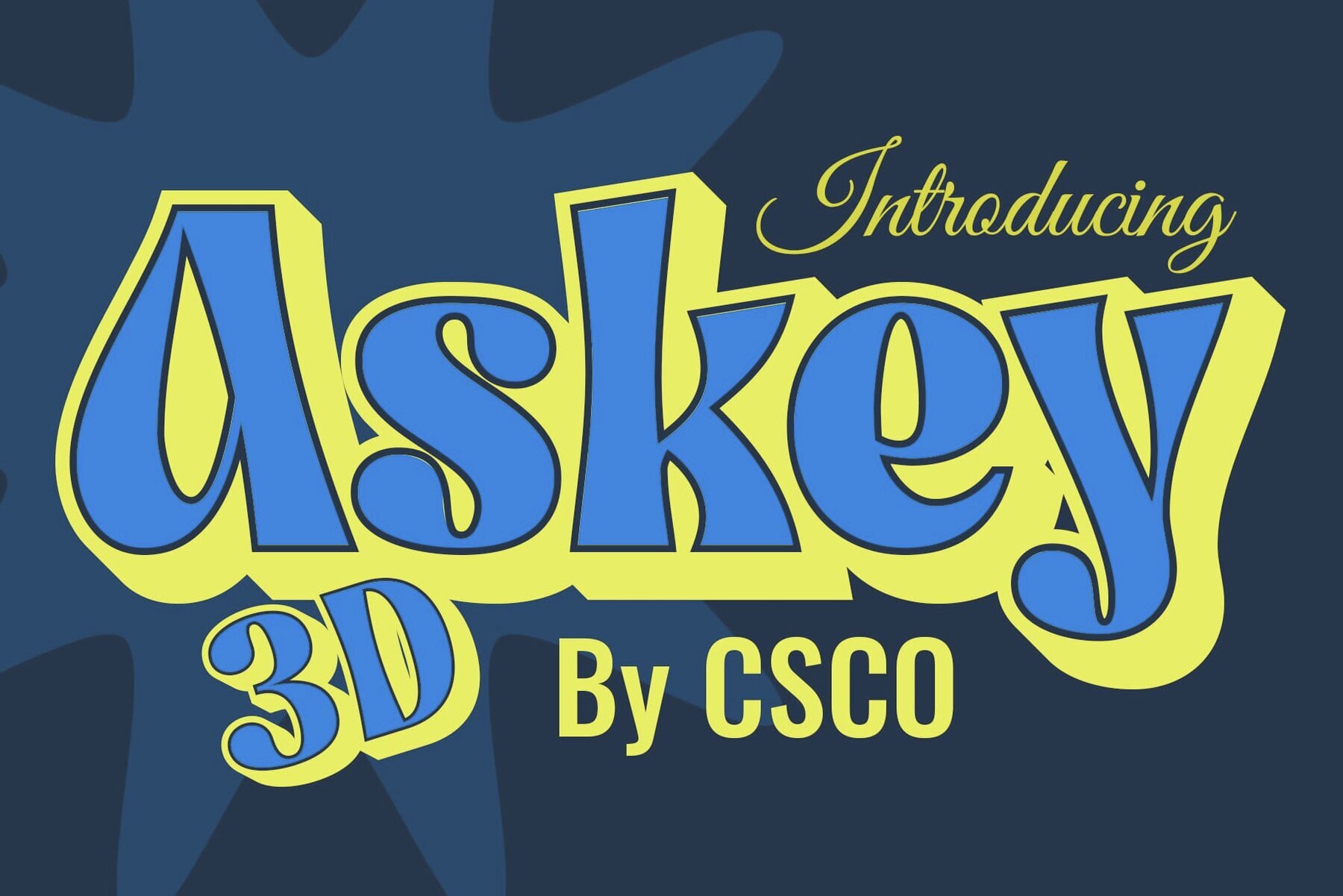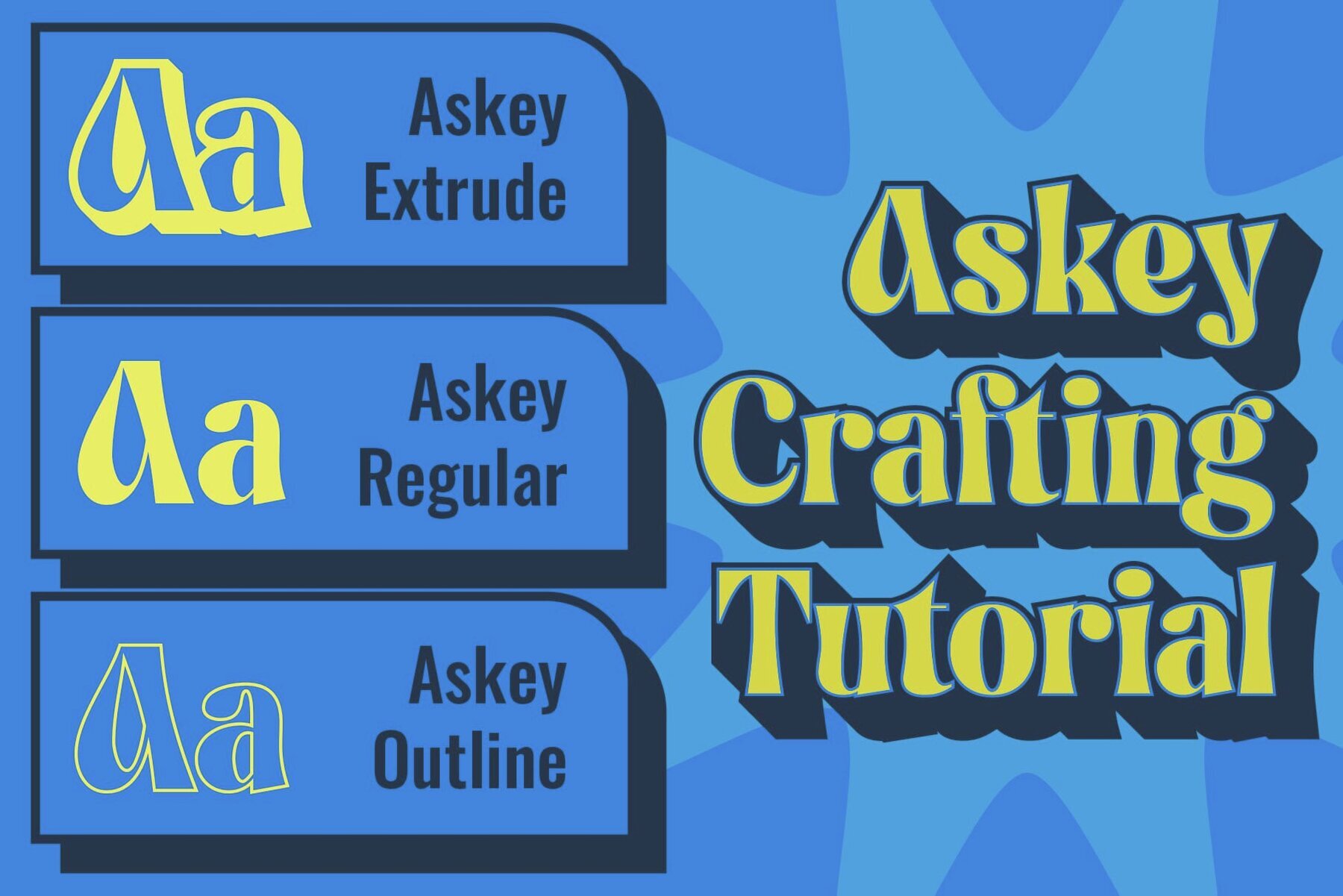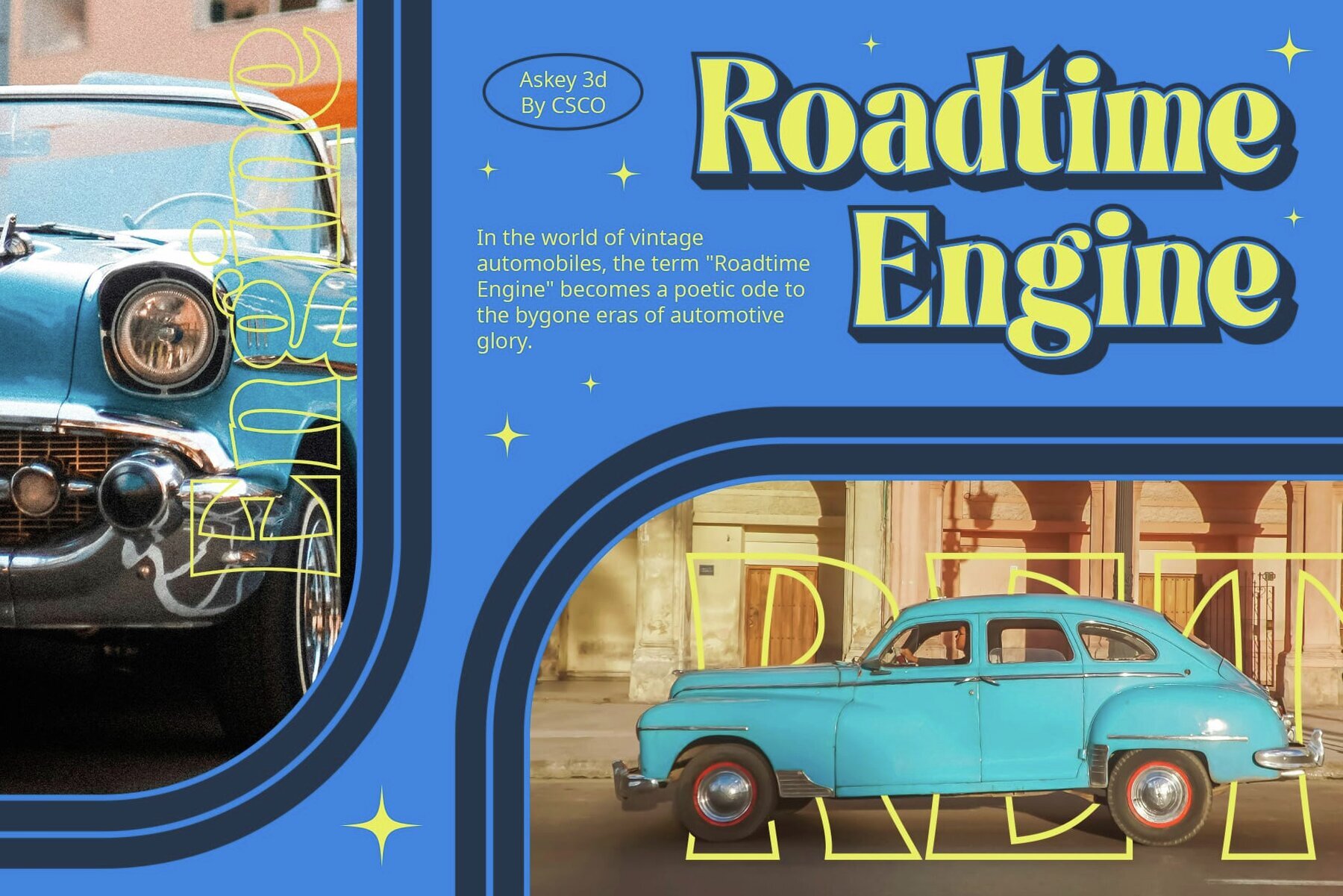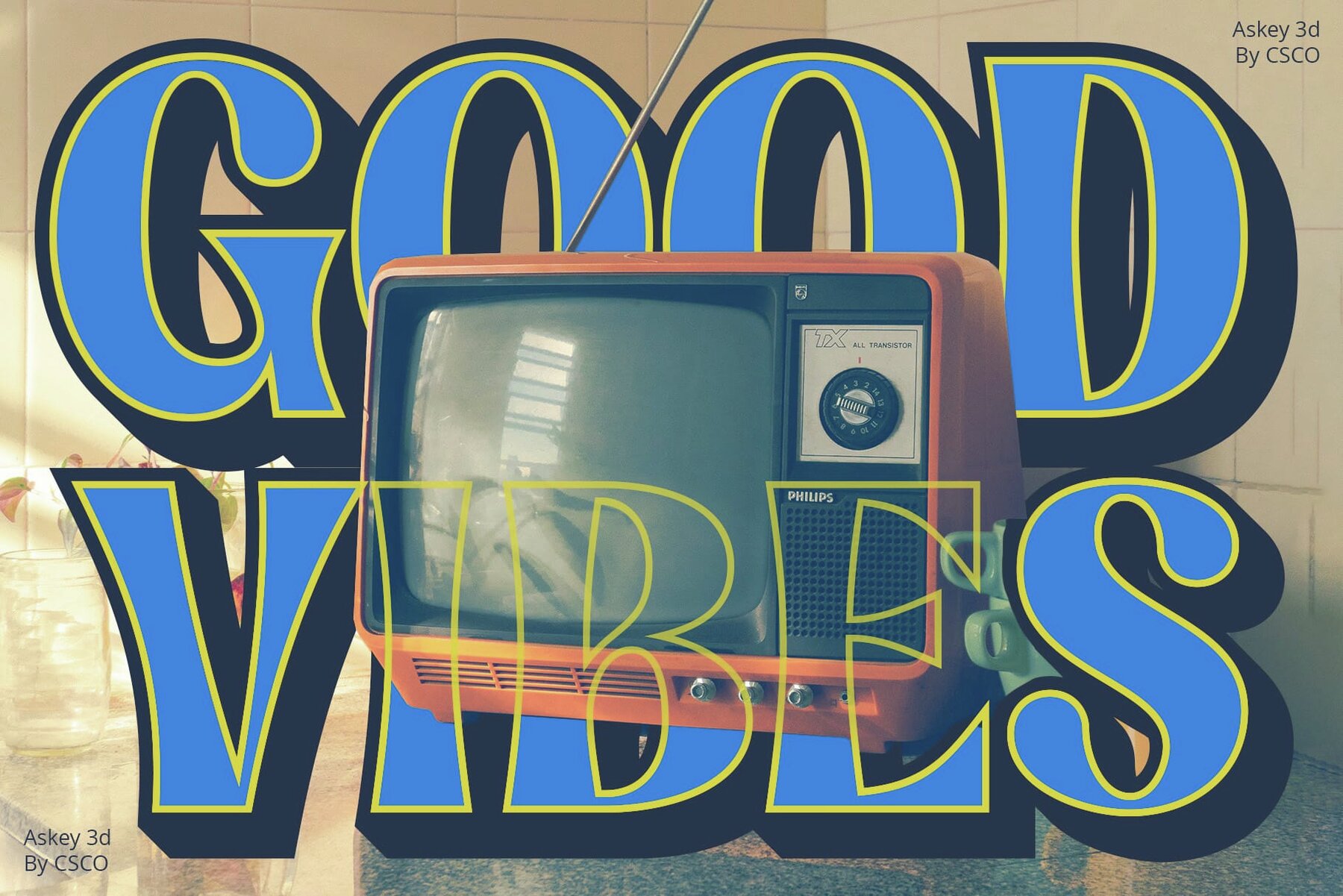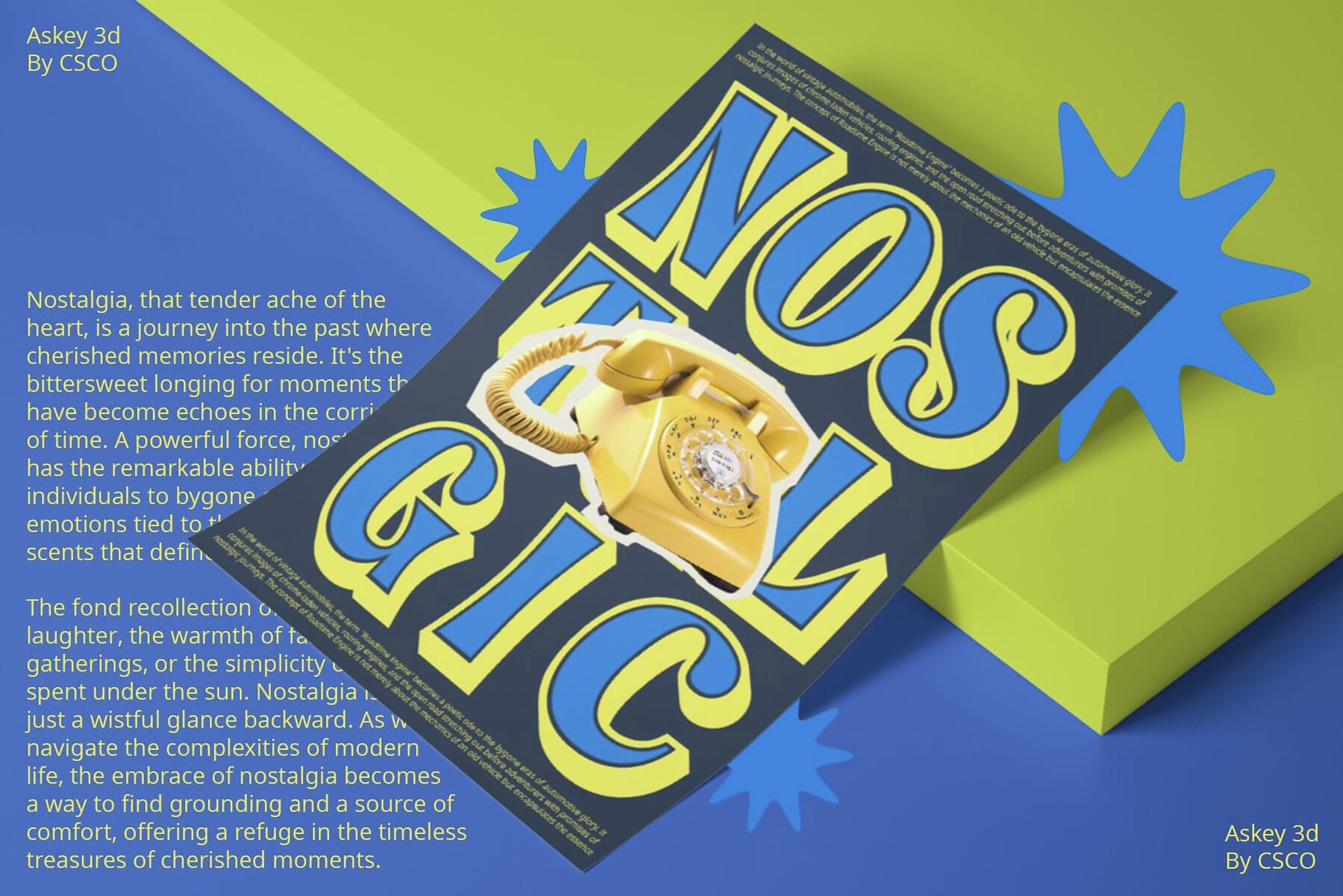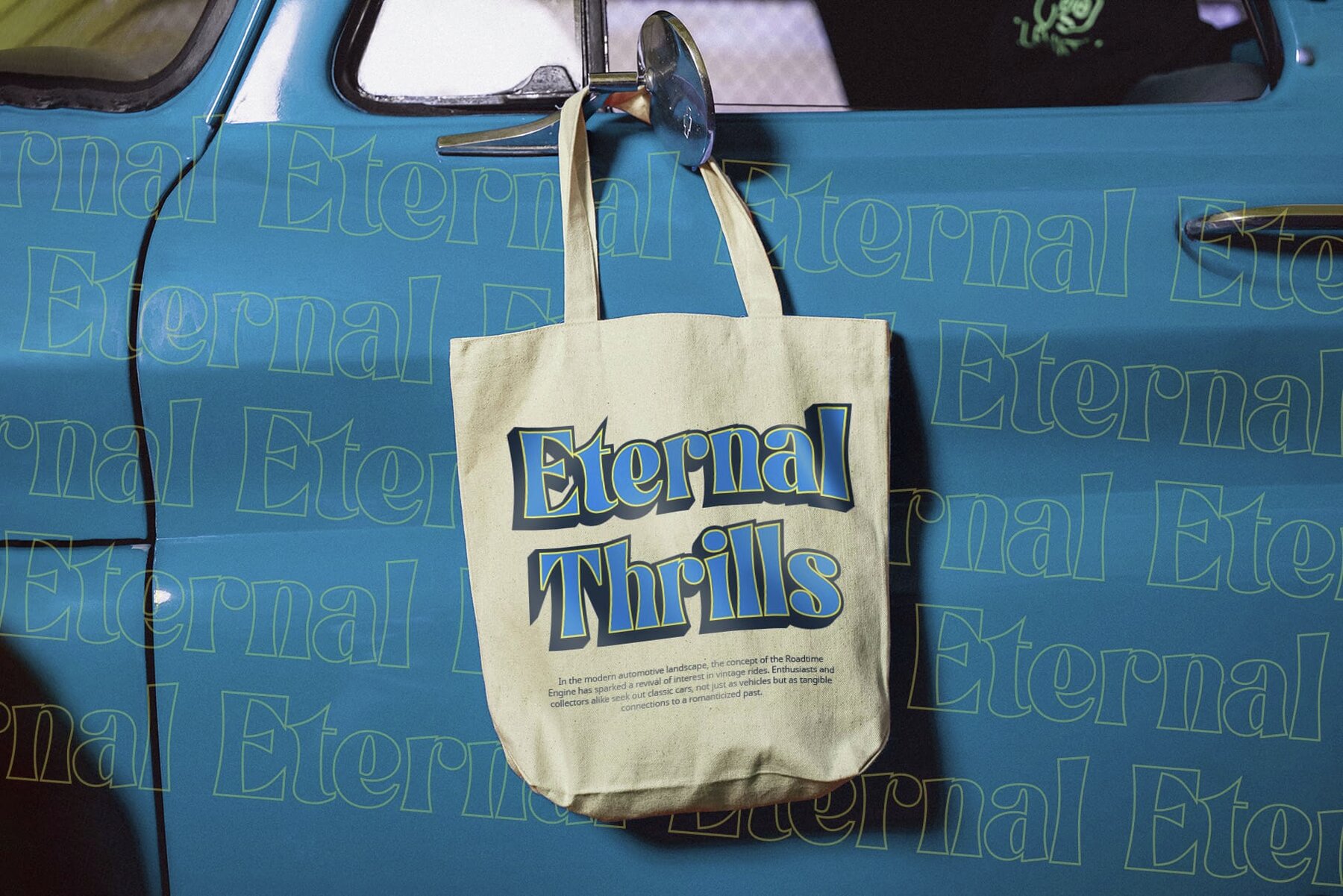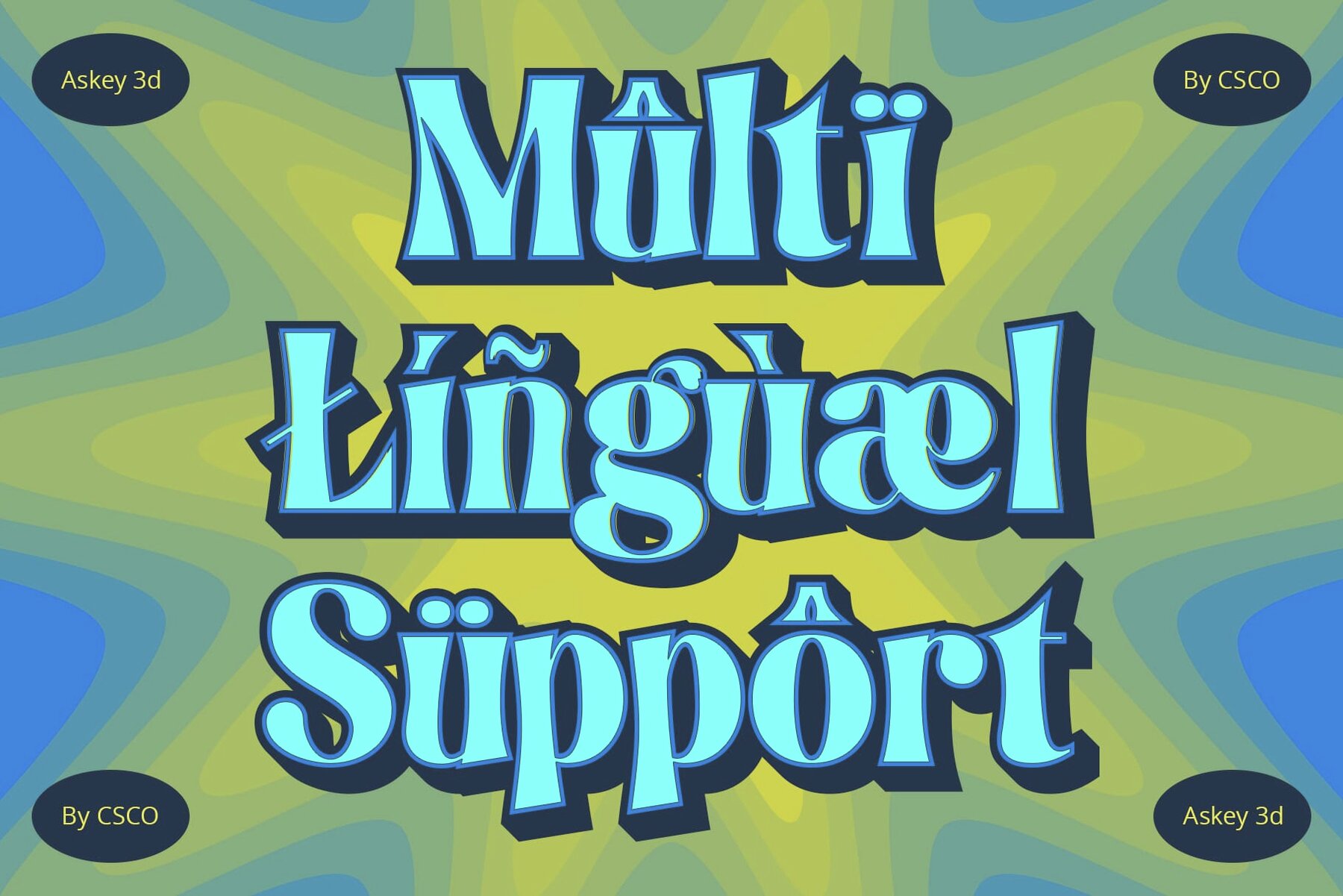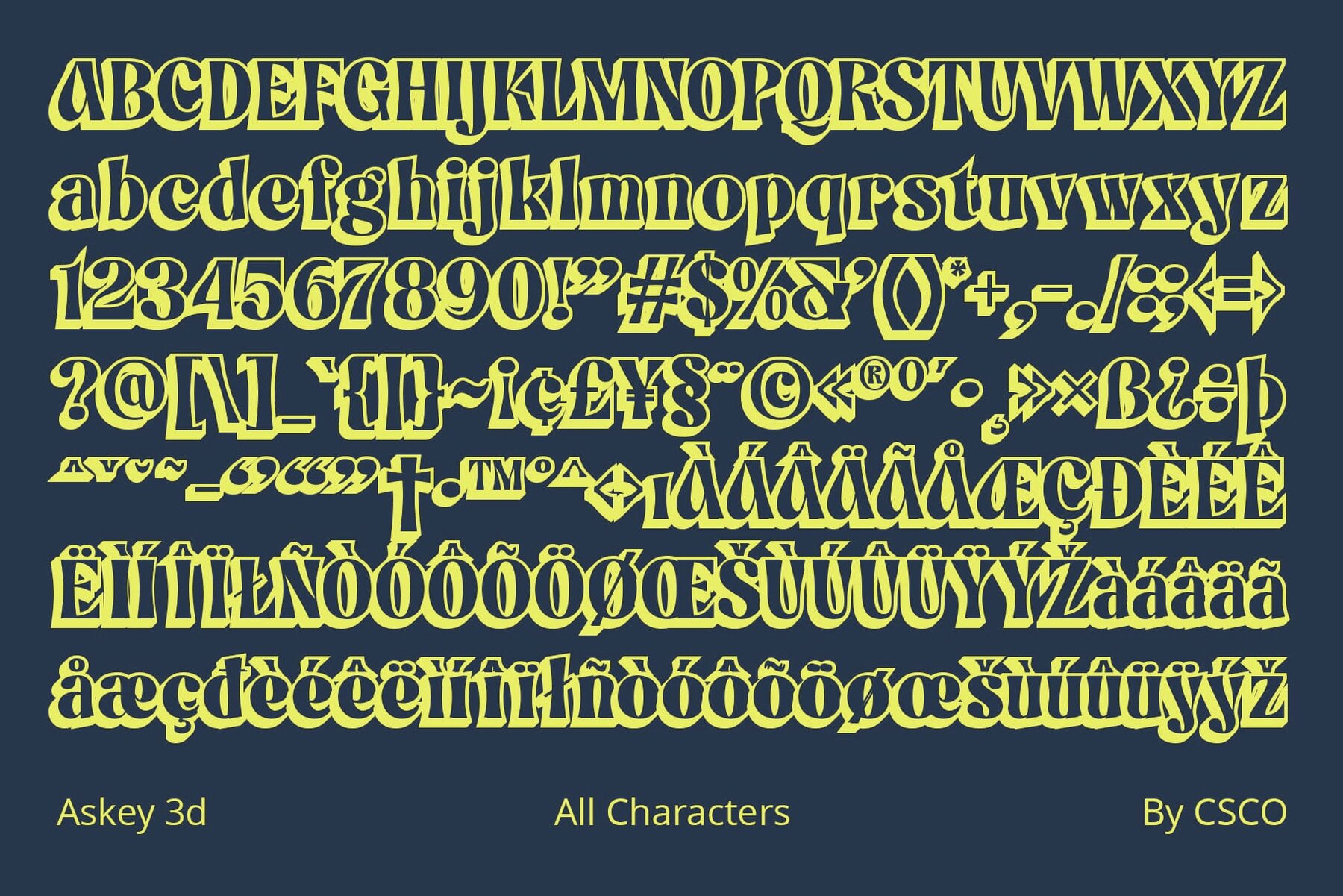
Askey 3D Font
Vibrant Funkiness in Typography Askey 3D is a dynamic display font that introduces a vibrant and funky fusion of styles, transcending the ordinary. Immerse your designs in a thrilling dimension with Askey 3D. This font doesn't just display characters; it breathes life into them, thanks to its captivating 3D effects. Incorporate a bold and playful vibe into your projects effortlessly. Askey 3D brings a sense of joy and excitement, making it an ideal choice for designs that demand attention. Whether it's posters, banners, or branding materials, Askey 3D is your versatile companion. Its funky charm adapts seamlessly to various design needs, offering a fresh perspective. Askey 3D isn't just a font; it's a creative adventure. Elevate your designs with the lively fusion of funkiness and 3D effects, creating a visual experience that captivates and delights. You can use this typeface without needing any specialized software. If you have any inquiries or need assistance, please feel free to contact us. We appreciate your support in enhancing your creative projects! Best regards, Craft Supply Co.Askey 3D Font: Funky Fusion of Style and Depth
Thrilling 3D Effects
Bold and Playful
Versatility Unleashed
Conclusion